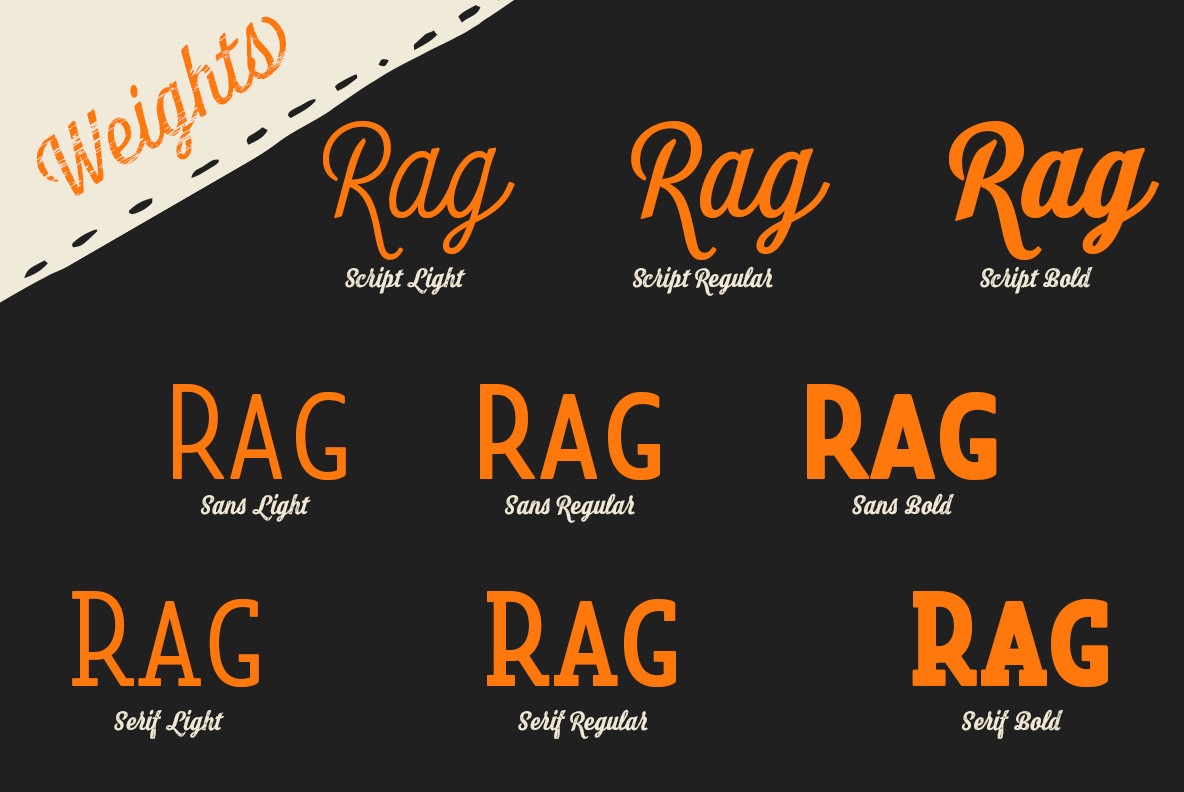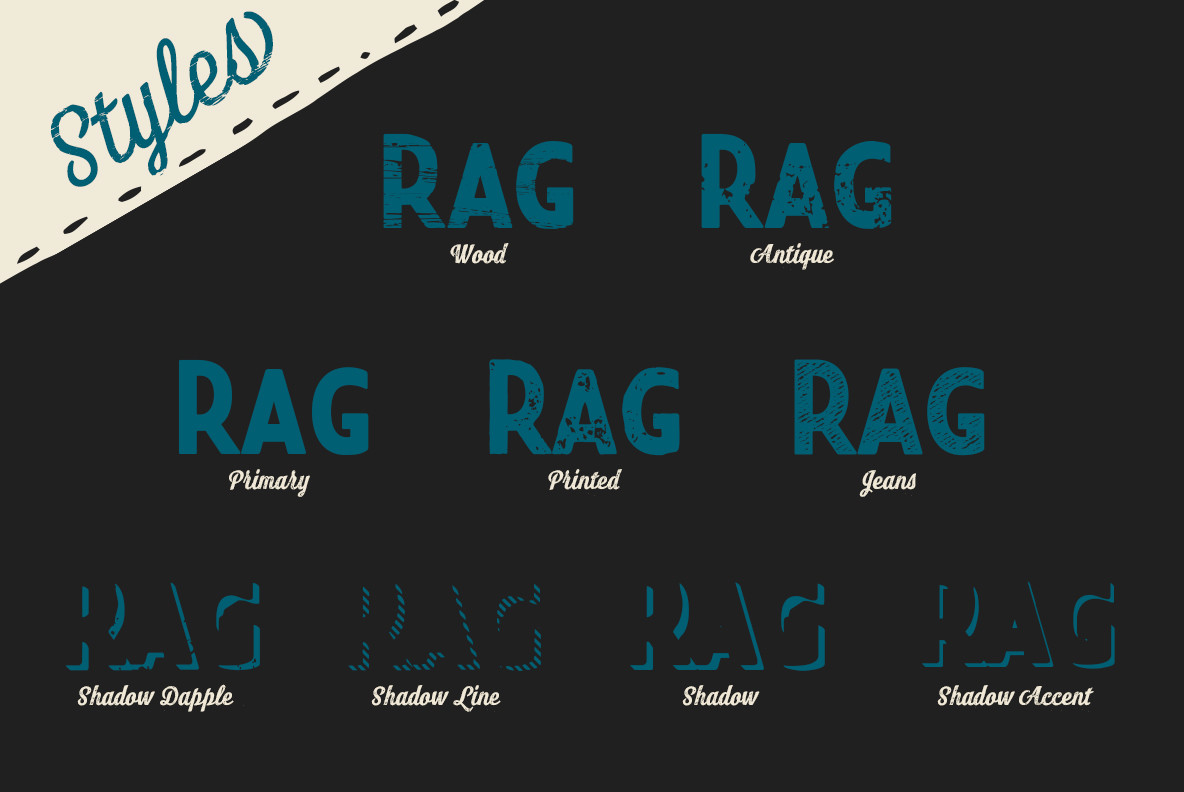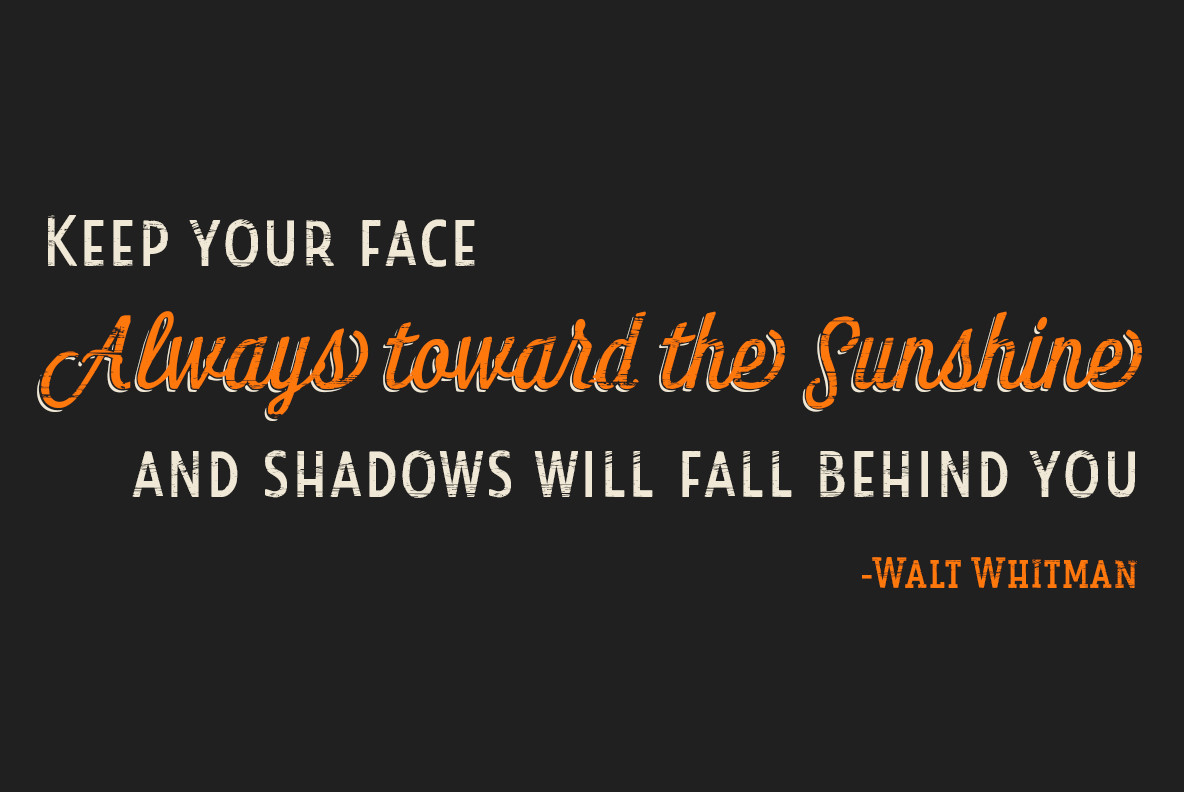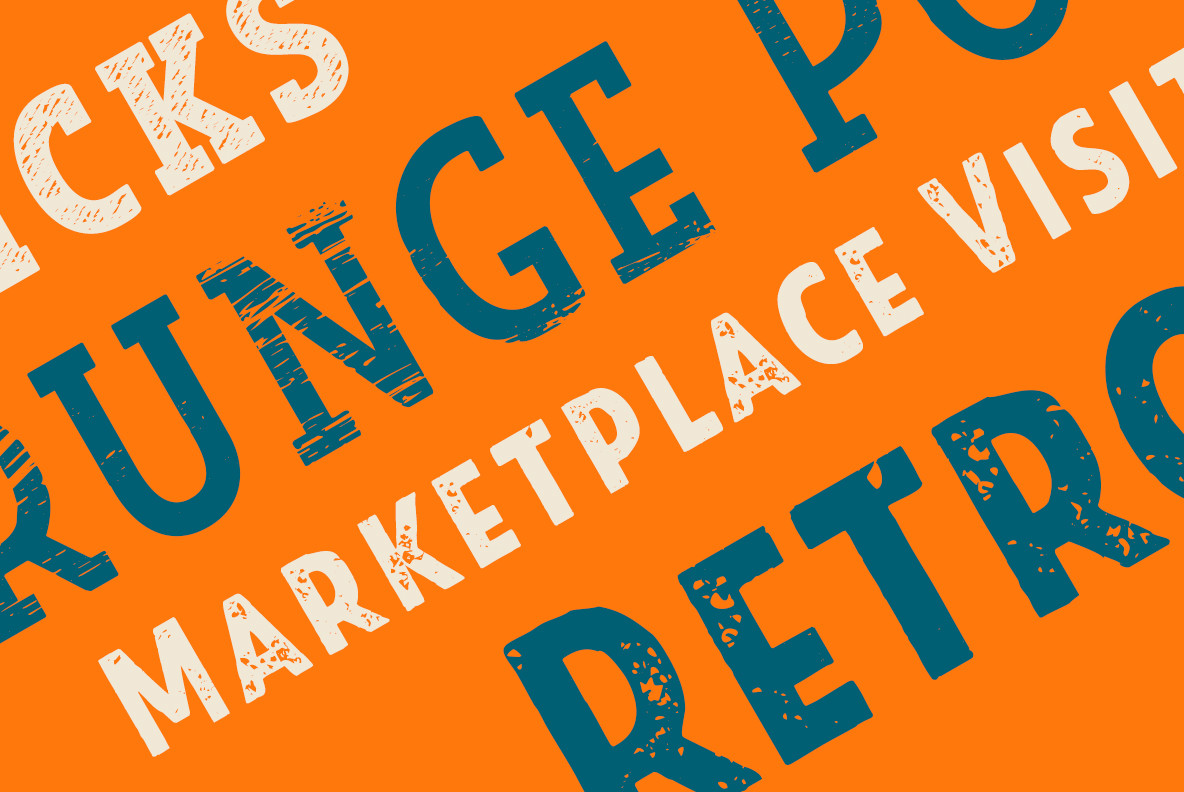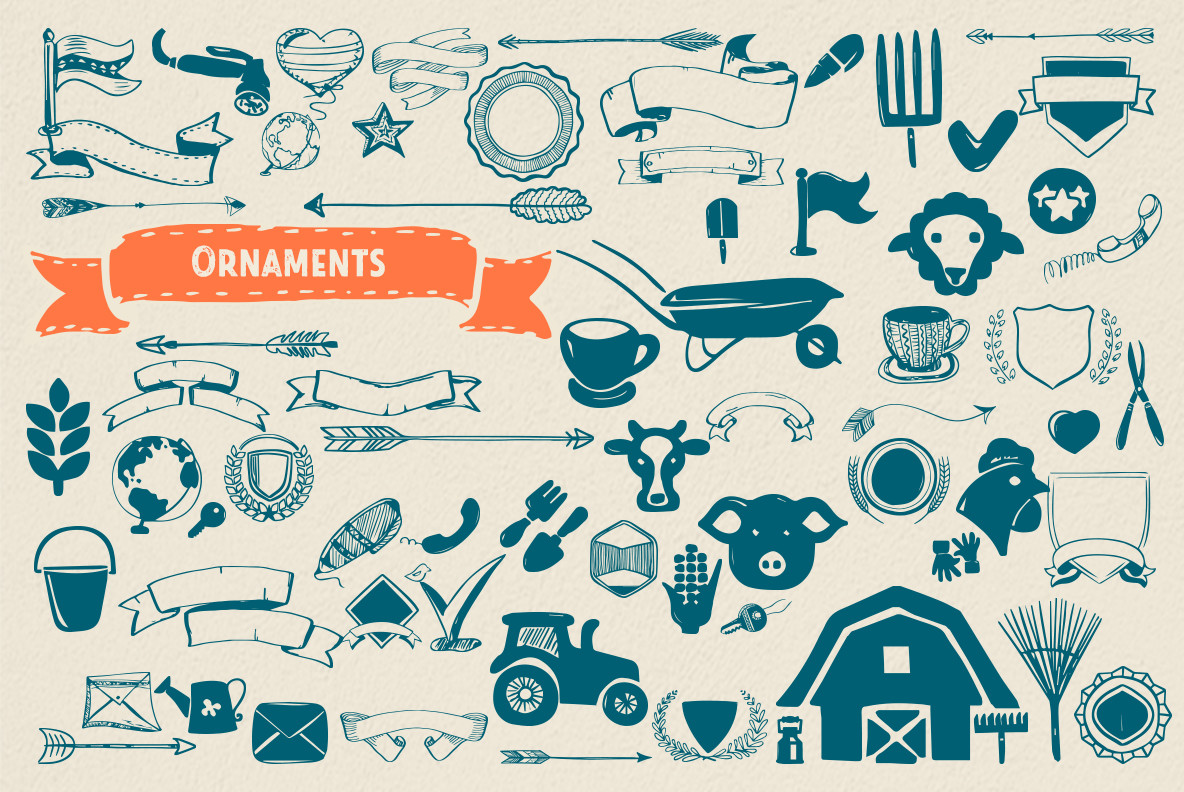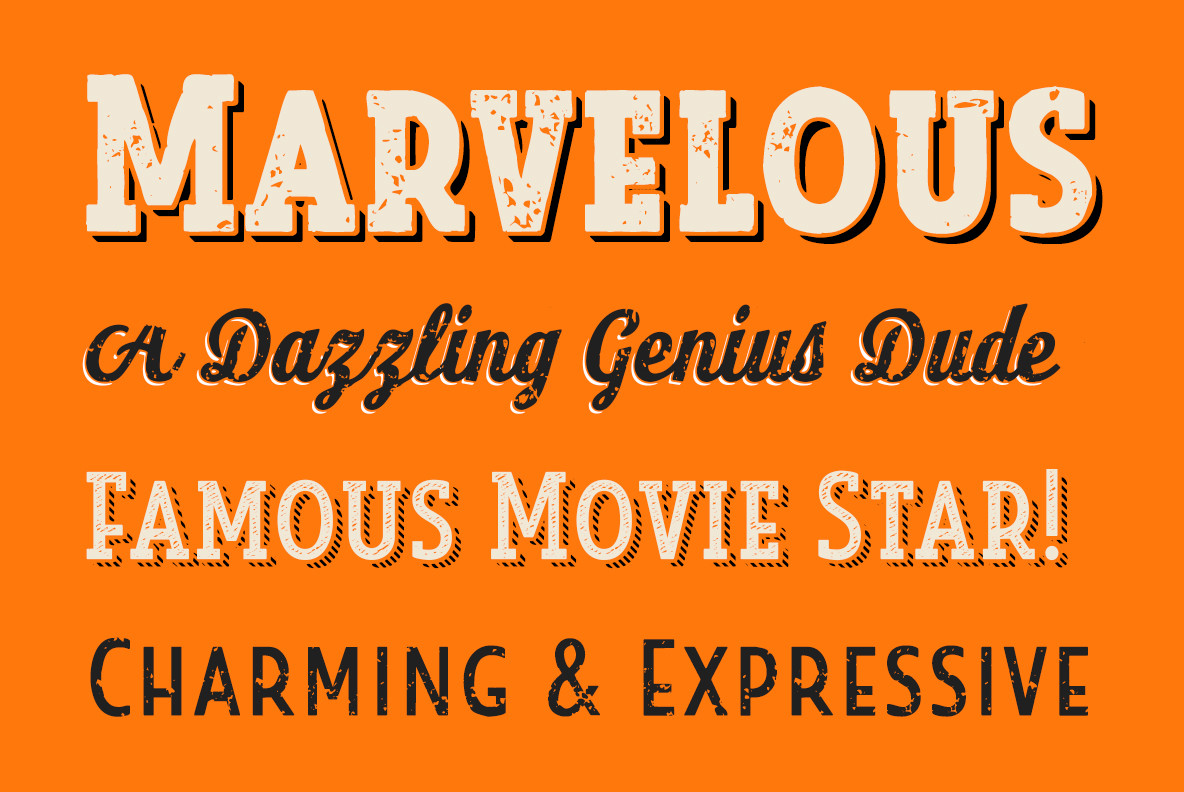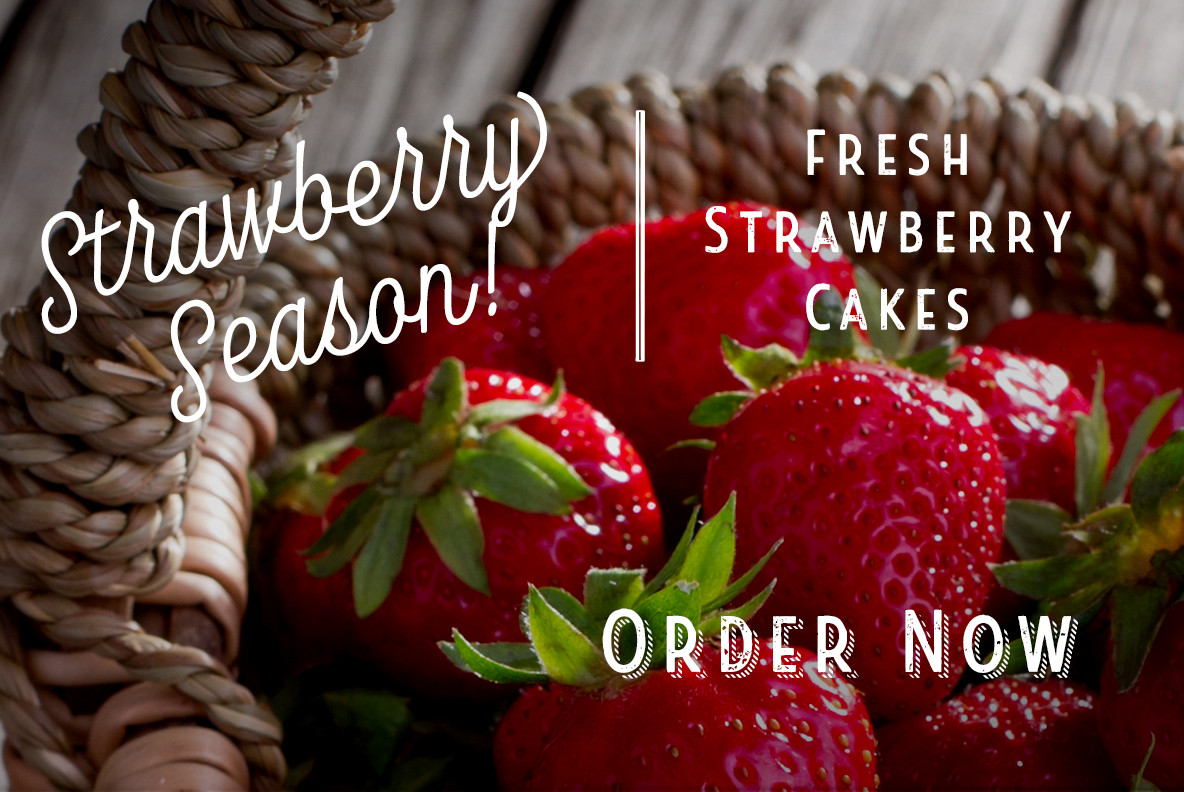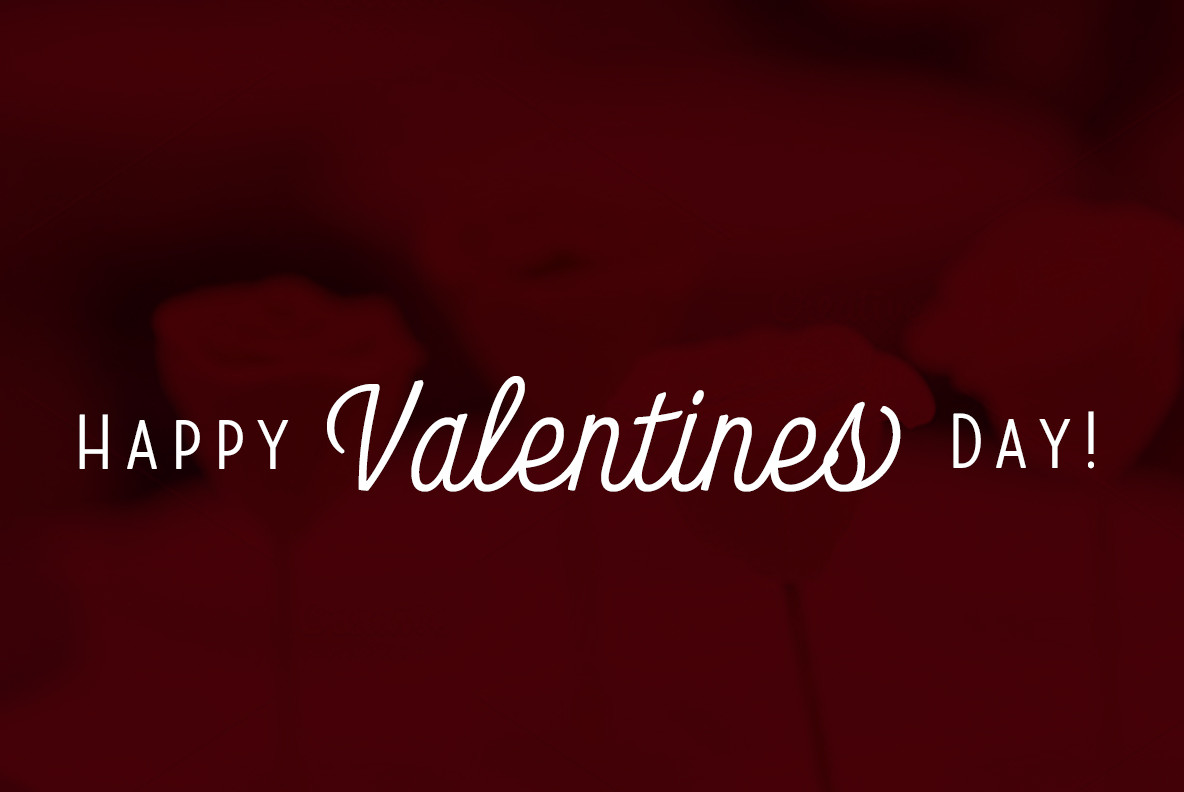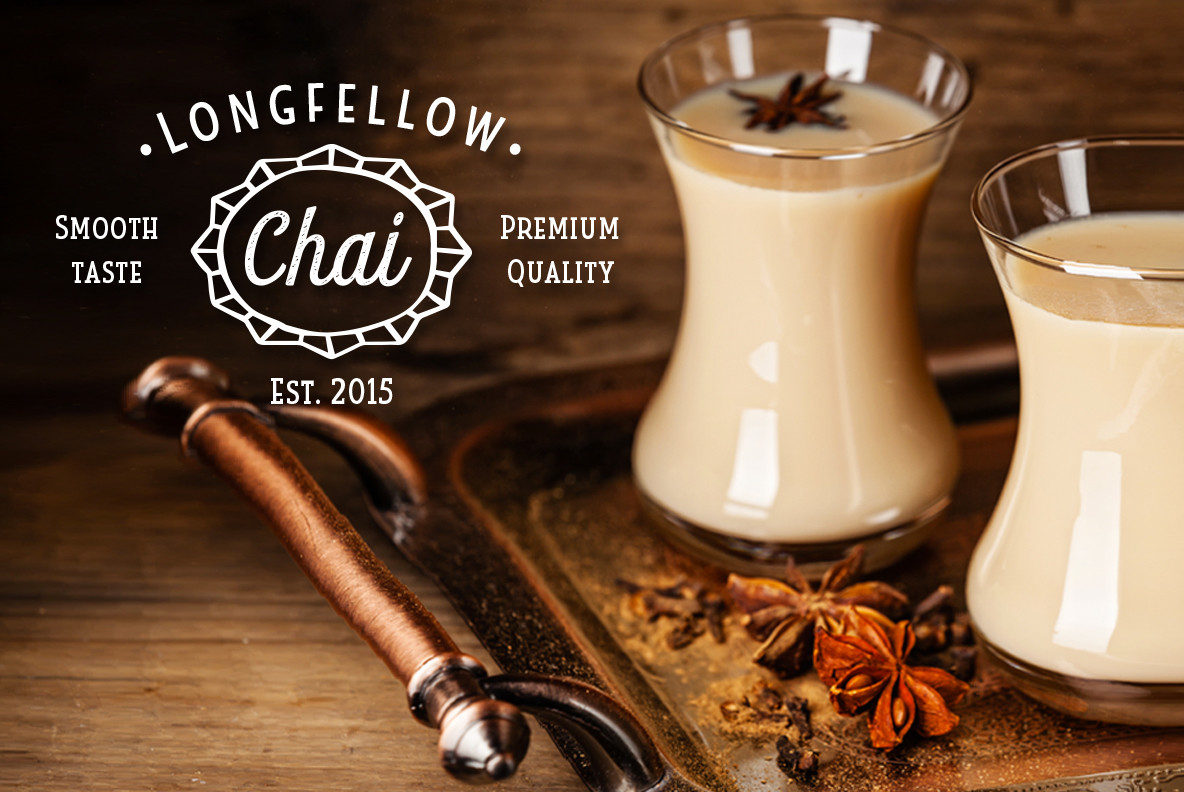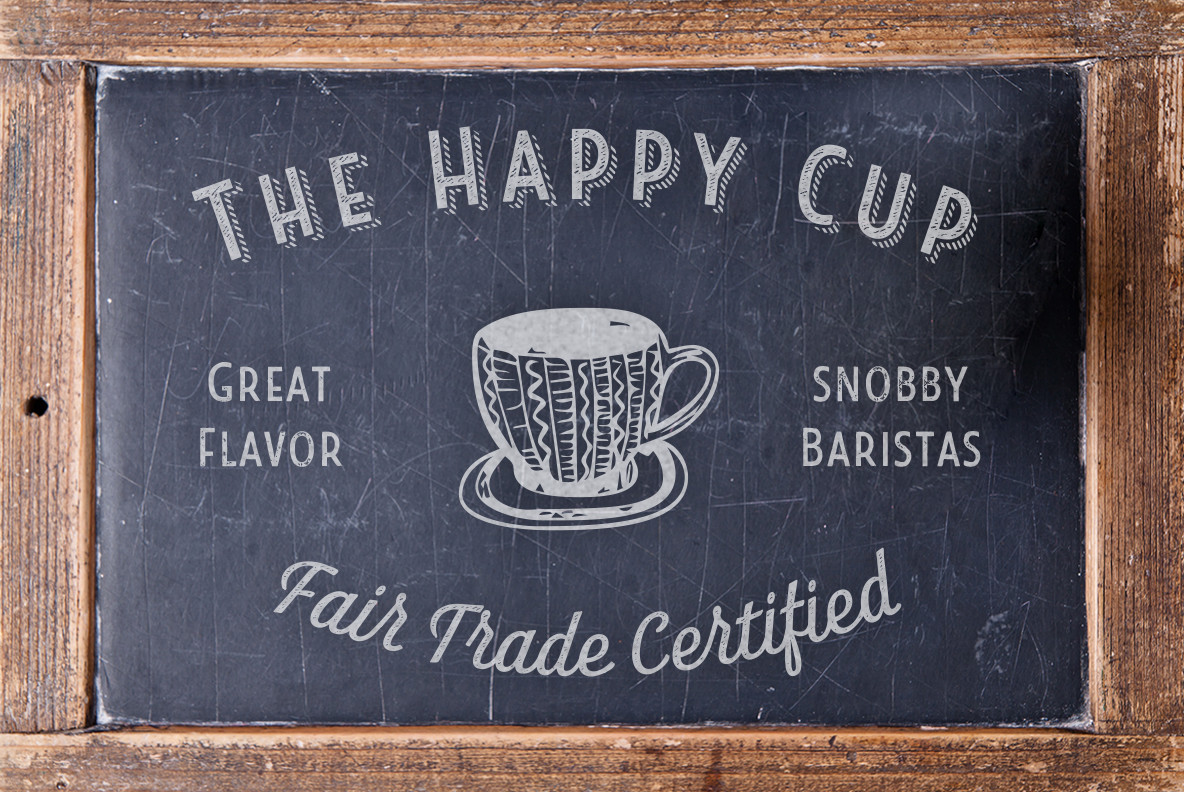
Look Font
There are over 70 fonts to choose from, including subfamily sans, serif, script and ornament fonts! You can’t go wrong. To get the most bang for your buck, order the whole Look family now!
Note on SHADOWS: Increase depth and make your designs pop! Add shadows to any of the Look fonts by duplicating the text content layer in place and switching it to its corresponding shadow. Color and offset to taste. Look shadows are offset automatically. In Illustrator, you may need to turn on Em Box Top for proper shadow alignment."